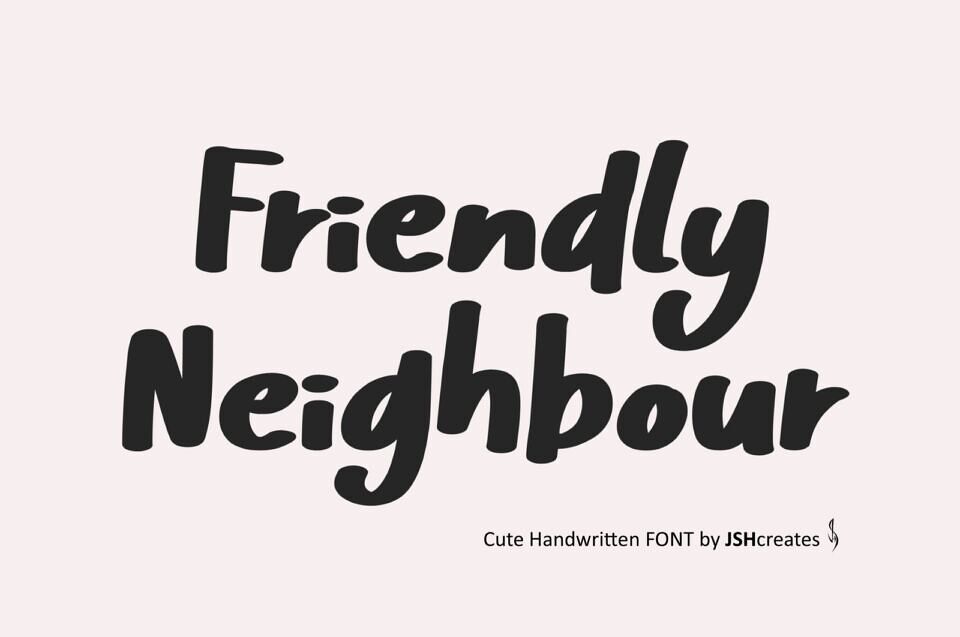
Friendly Neighbour is a Hand lettered font perfect for advertising and display purposes, including banners, book covers, shirts, posters, logos and much more!
Font includes all upper and lowercase letters, numbers, characters and punctuation.